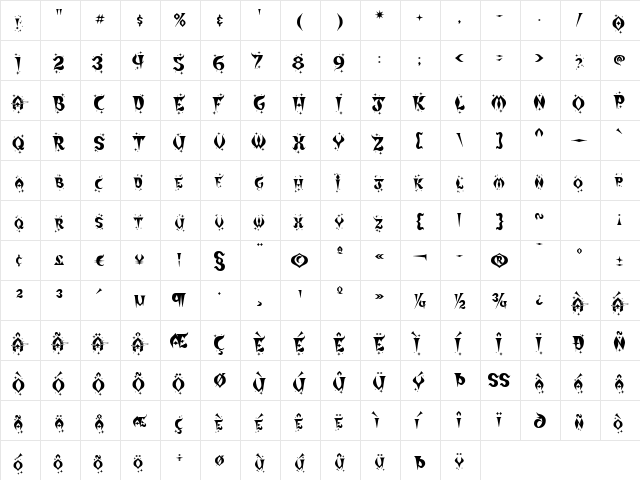
Mirage Zanzibar Regular
Design Context for Mirage Zanzibar Typeface
Mirage Zanzibar is a composed and adaptable typeface that performs quietly and consistently across a wide range of design contexts.